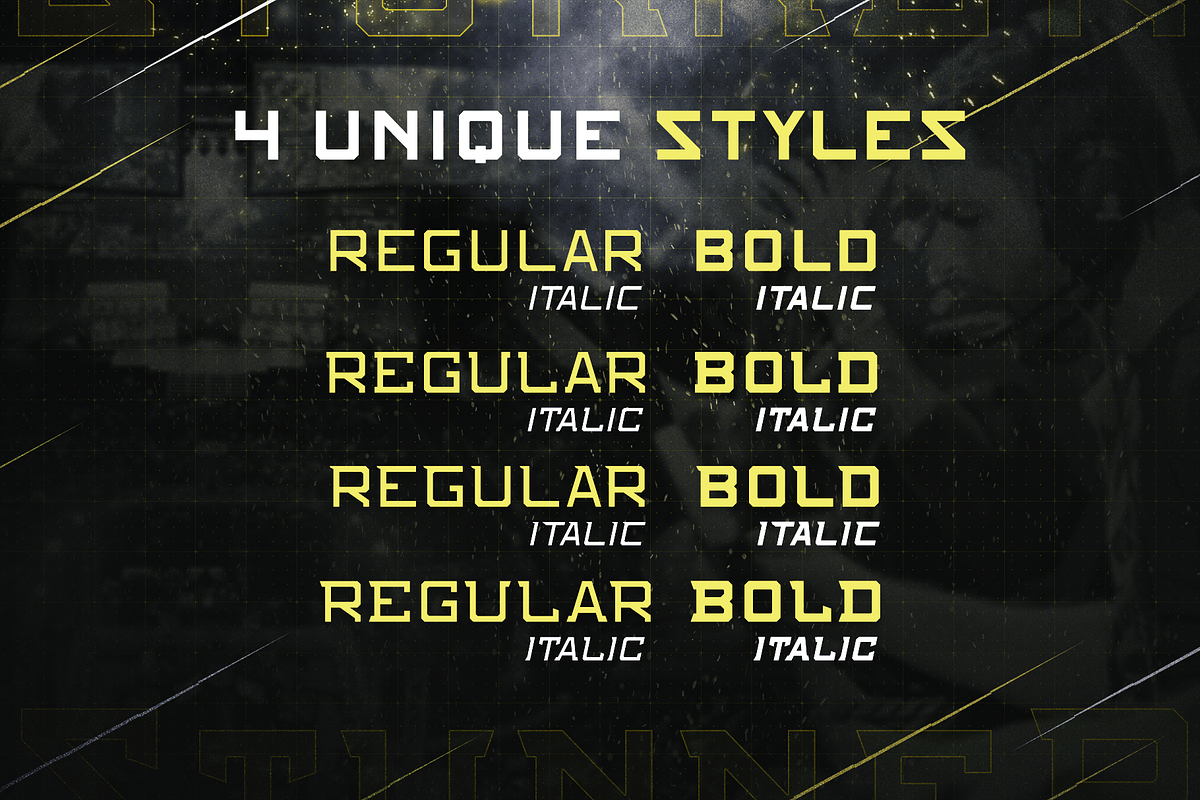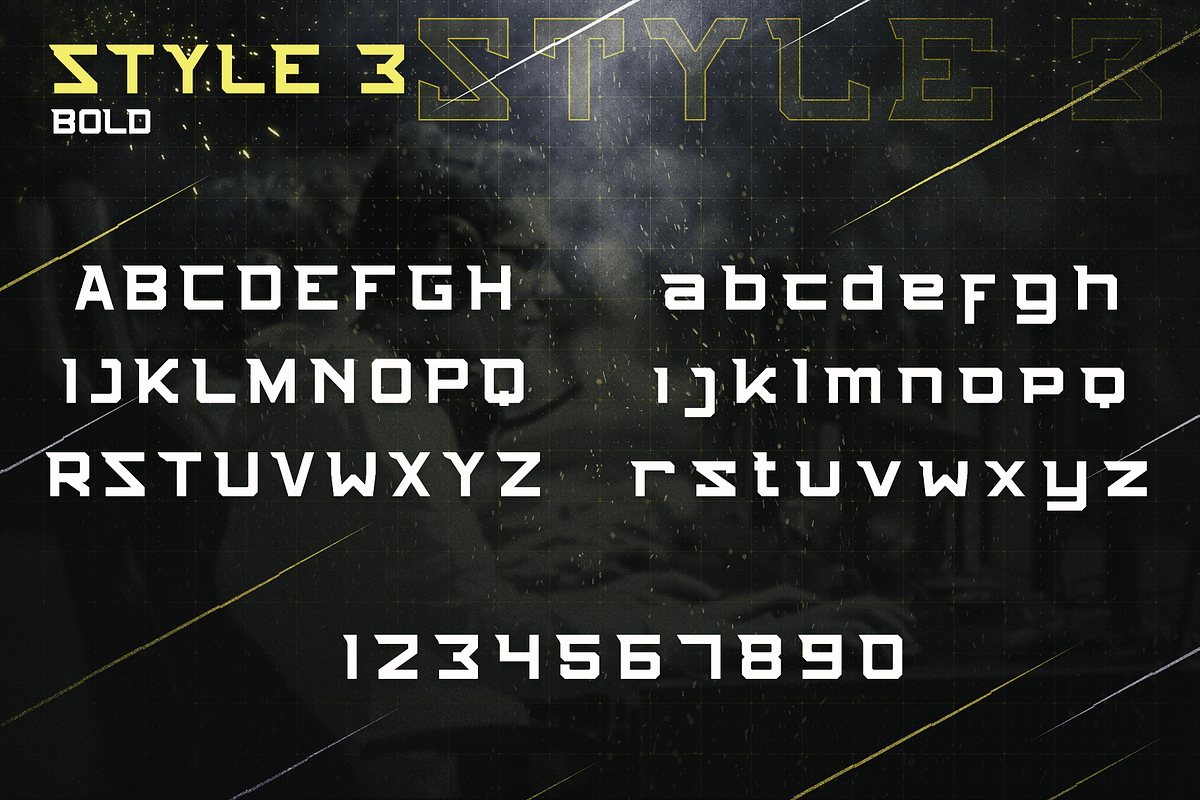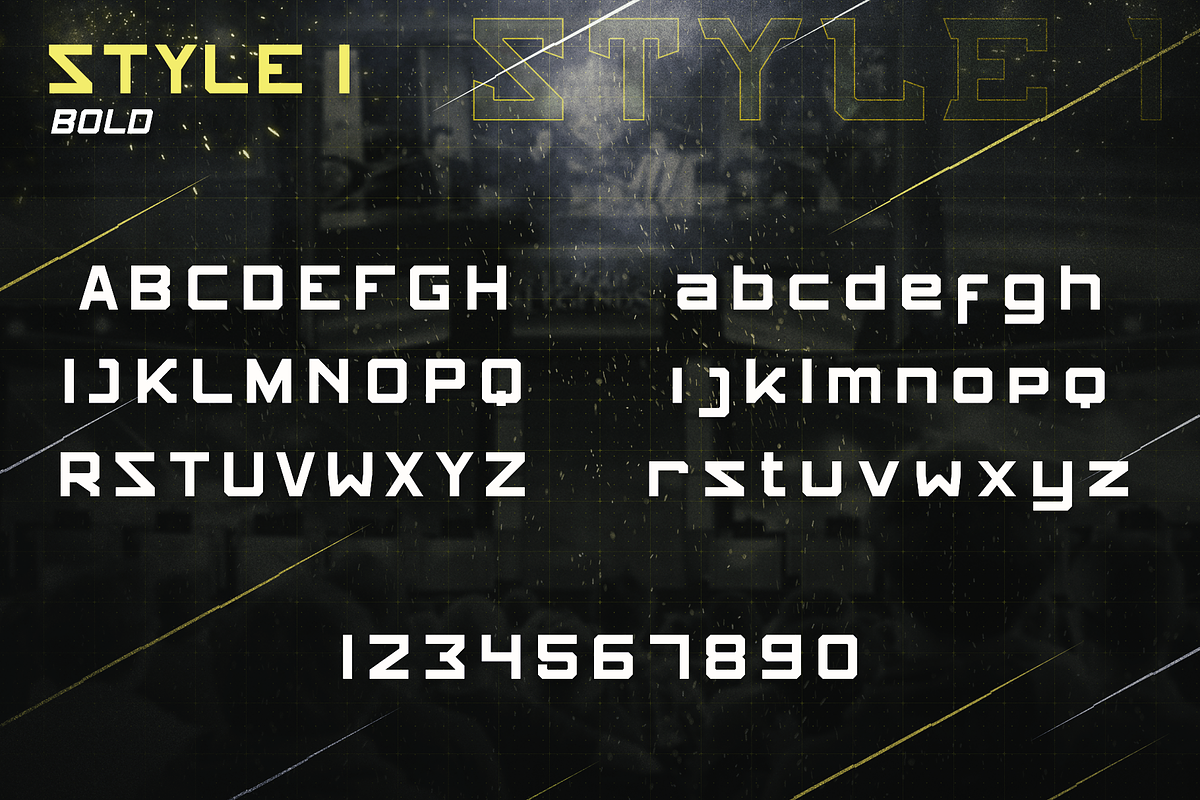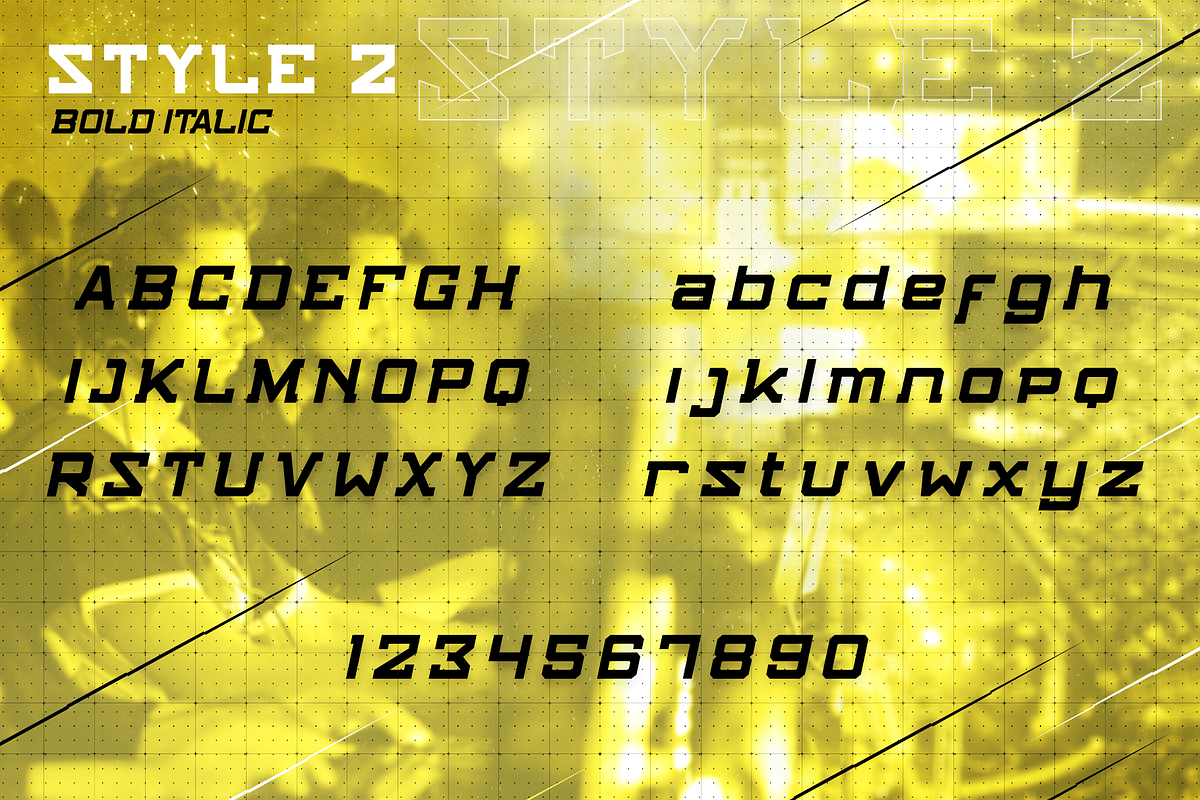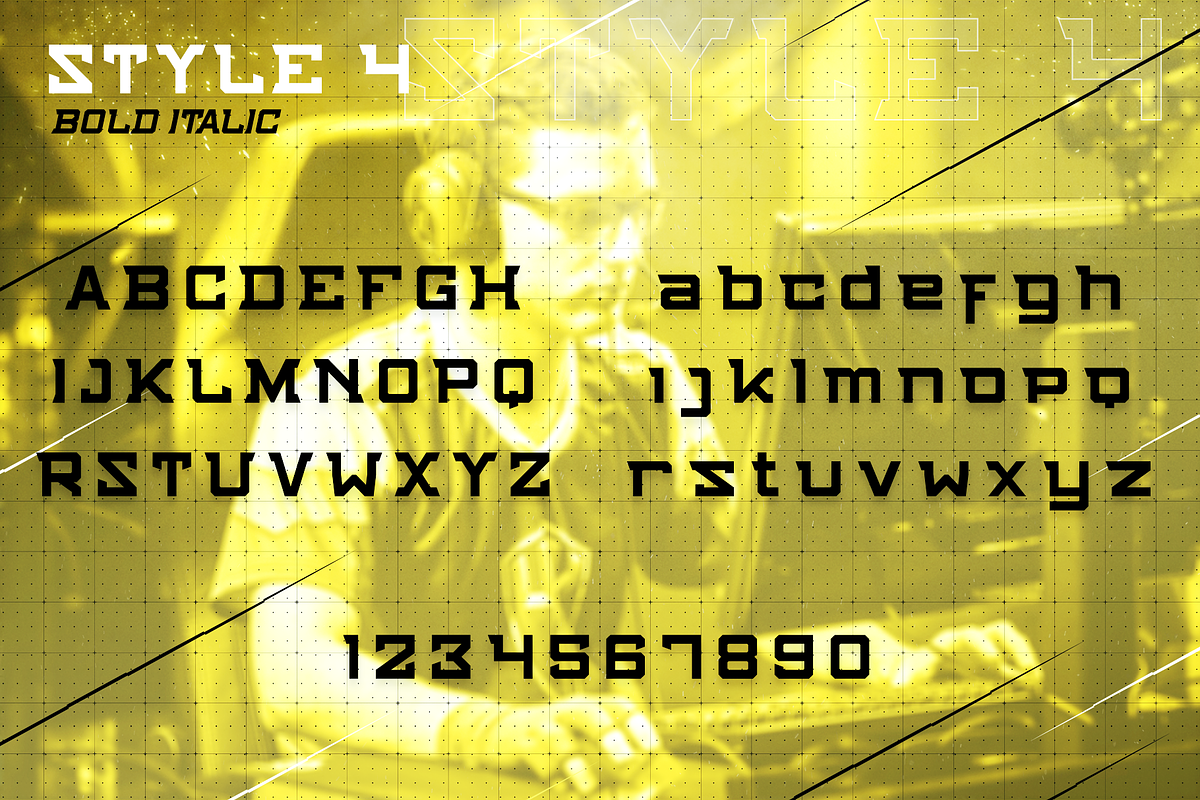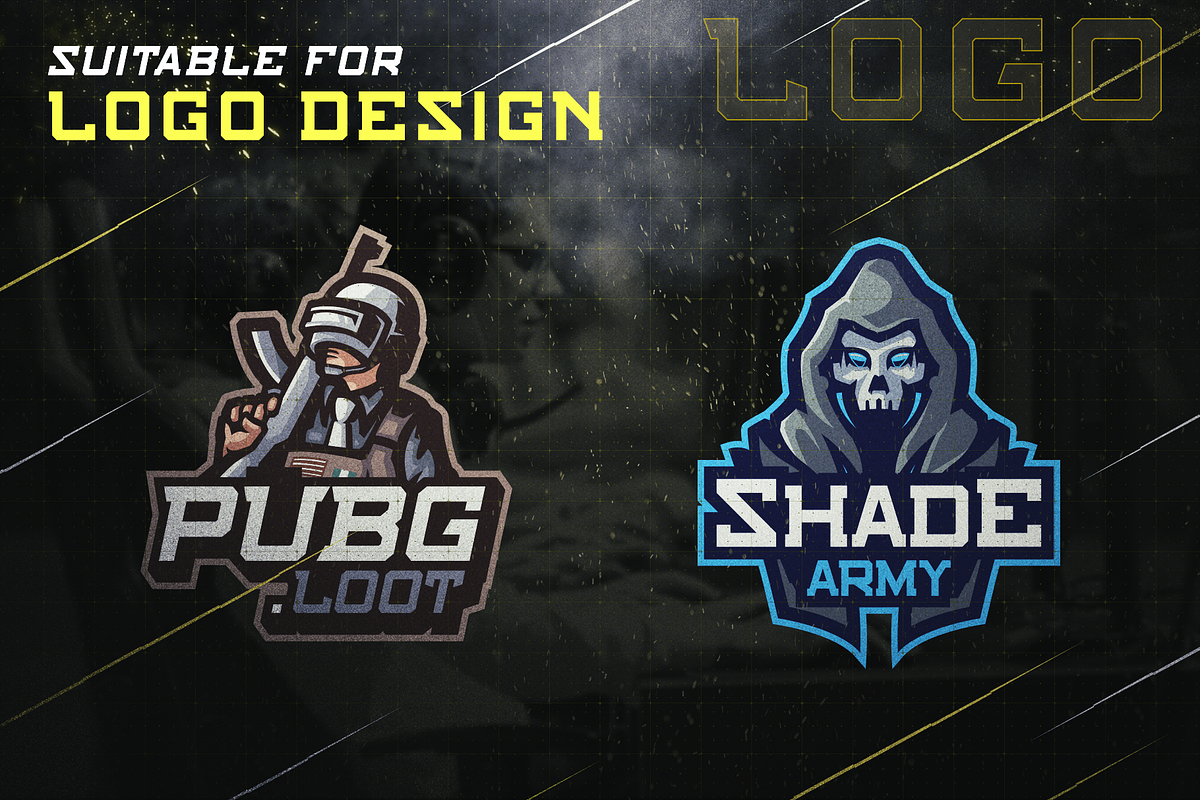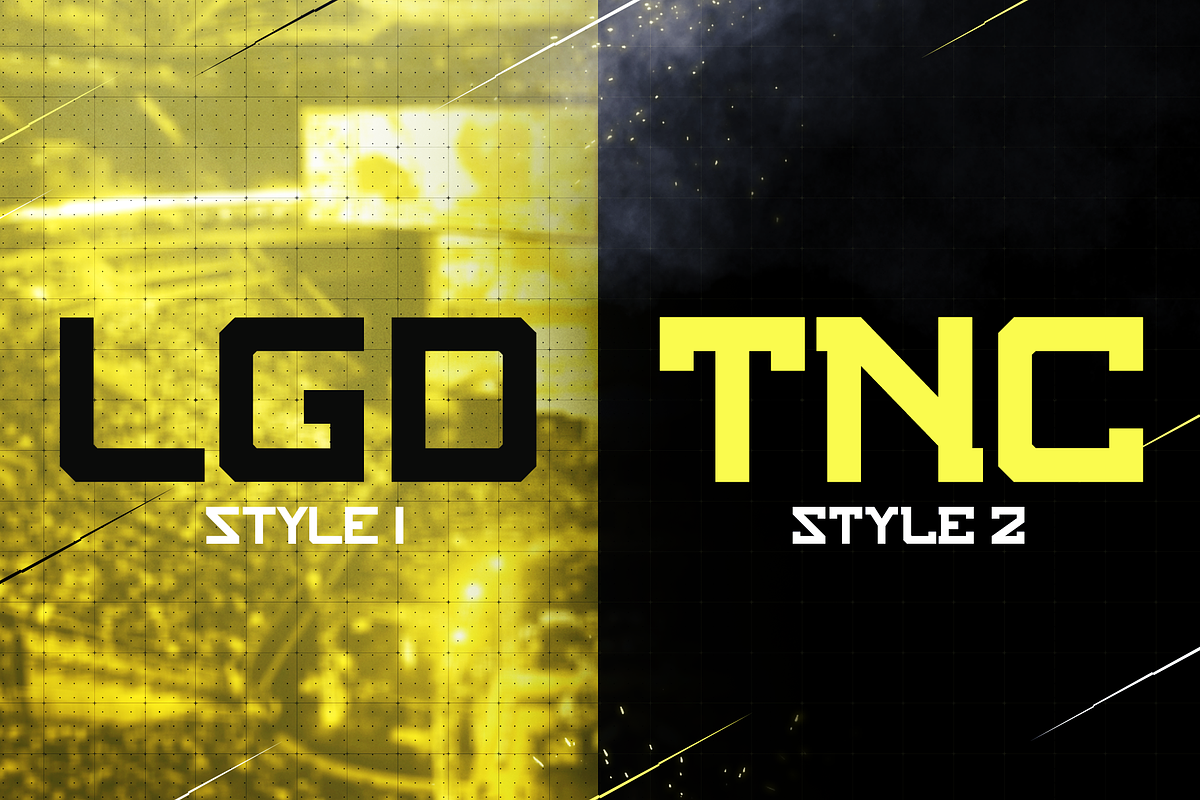
STUNNER font, is our new item that suitable for sports & e - sports industries. This font's included in NFC font family.
Logo, Sticker, Jersey, Invitation Card, Brochure, etc.
- 4 Unique Style
- Included Regular, Bold, Italic & Bold Italic in every each Style
- 4 Unique Style
- Included Regular, Bold, Italic & Bold Italic in every each Style
- NFC Stunner [ Style 1 ] Italic
- NFC Stunner [ Style 2 ] Italic
- NFC Stunner [ Style 3 ] Italic
- NFC Stunner [ Style 4 ] Italic